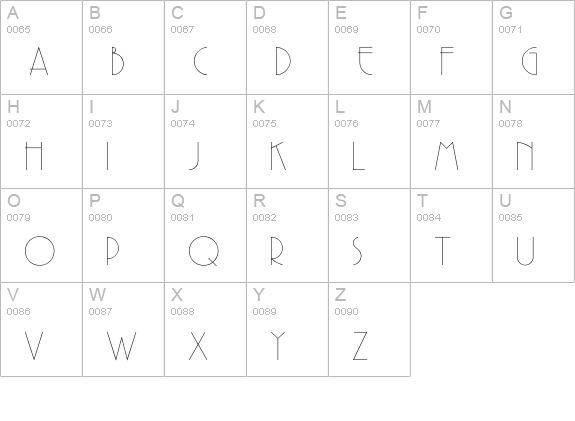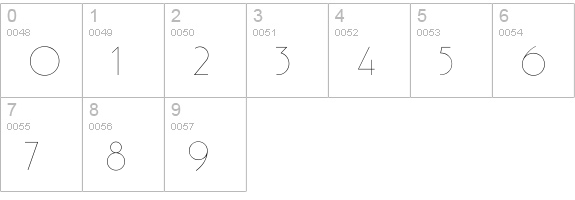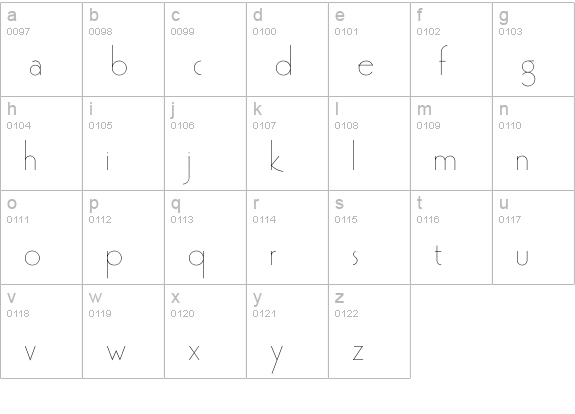
Derer Font Details
Derer font is a stunning display typeface that combines elegance with a modern touch. Its sleek lines and unique curves make it perfect for branding, logos, posters, and more. With a wide range of glyphs and ligatures, Derer font allows you to create eye-catching designs that stand out. What makes Derer font even more appealing is that it is completely free to download. You can easily access this versatile font at FontsMarket.com and enhance your projects with its sophisticated style. Whether you're a seasoned designer or just starting out, Derer font is a valuable addition to your font collection. Download it now and unleash your creativity with this exquisite typeface.